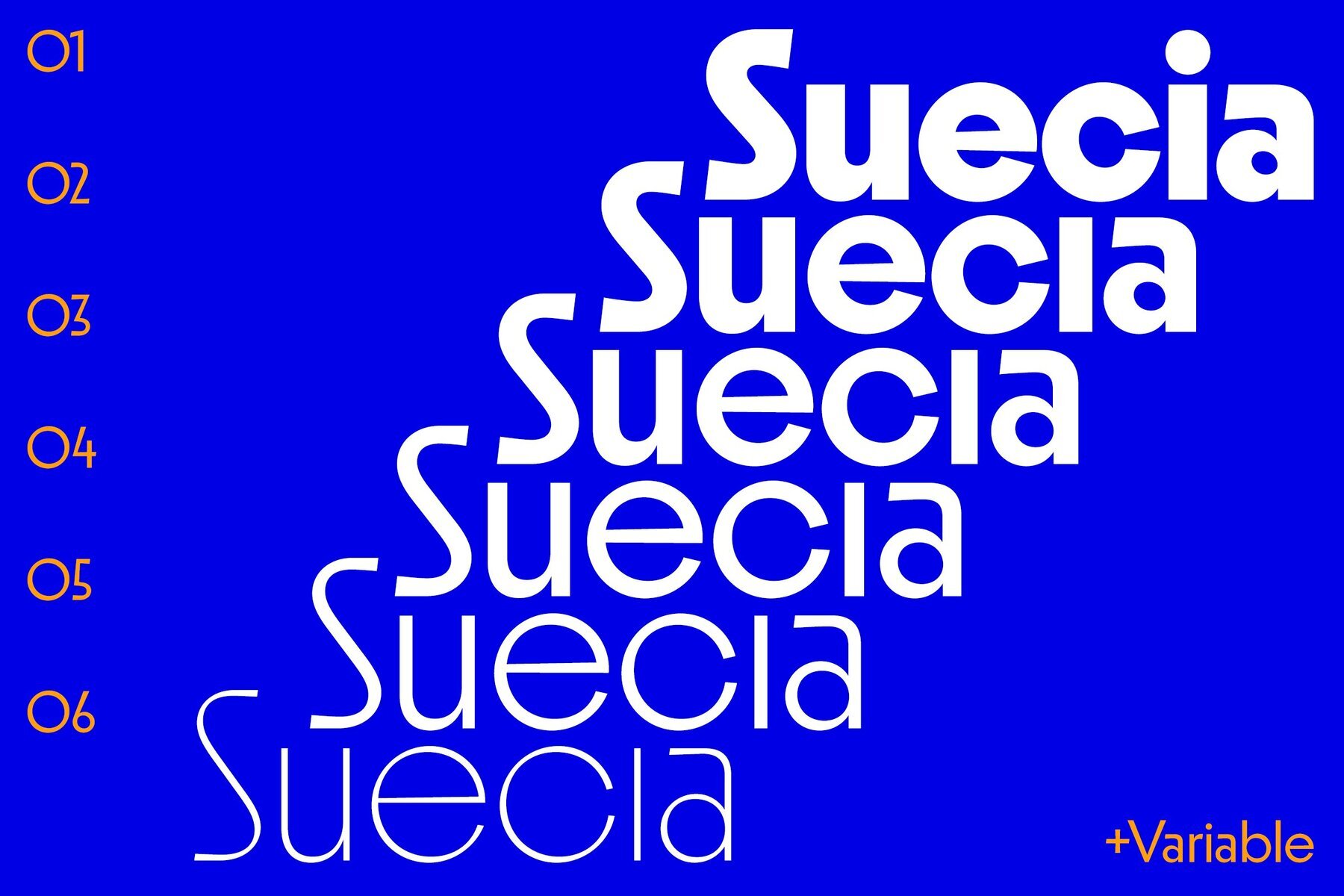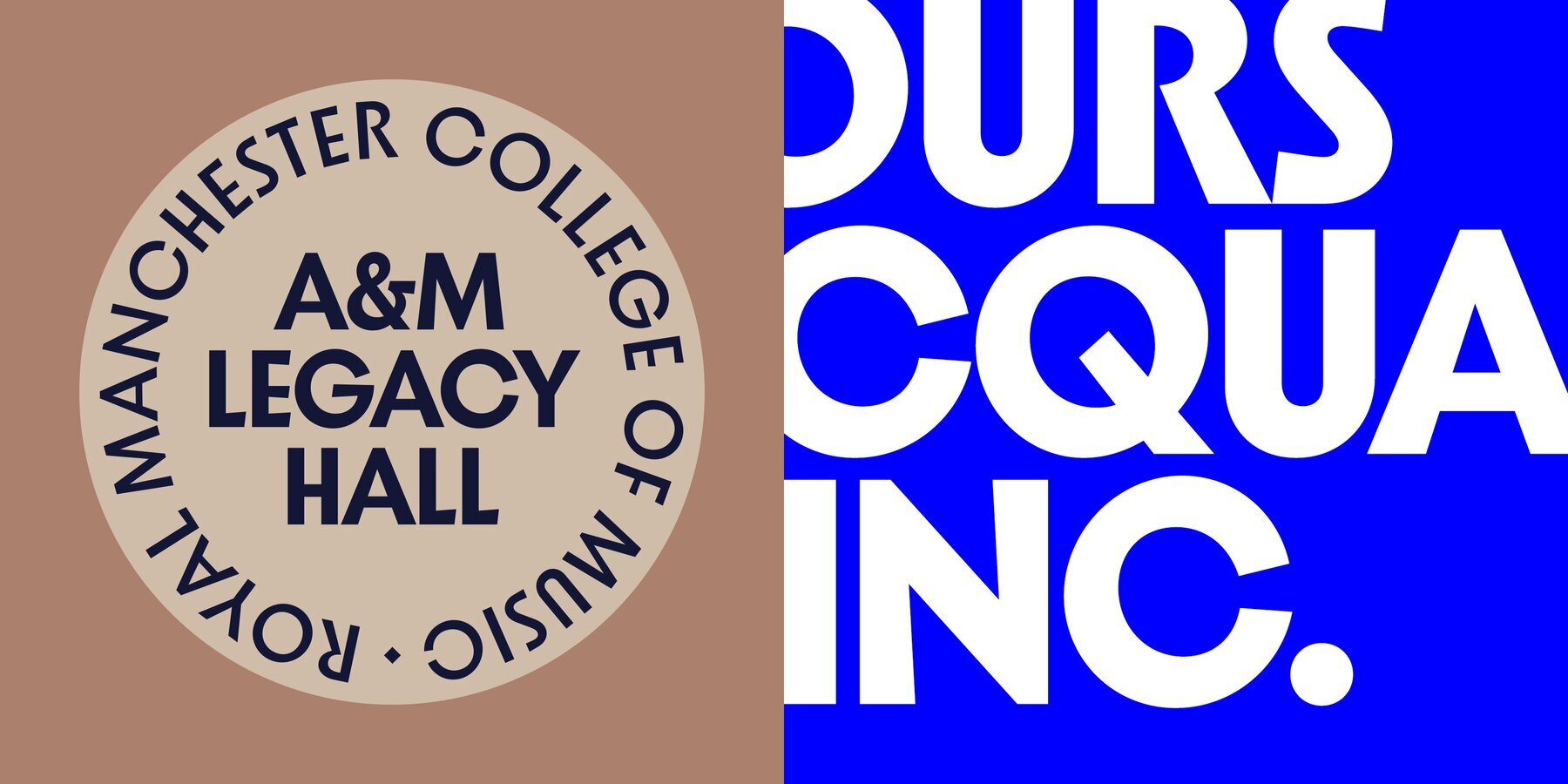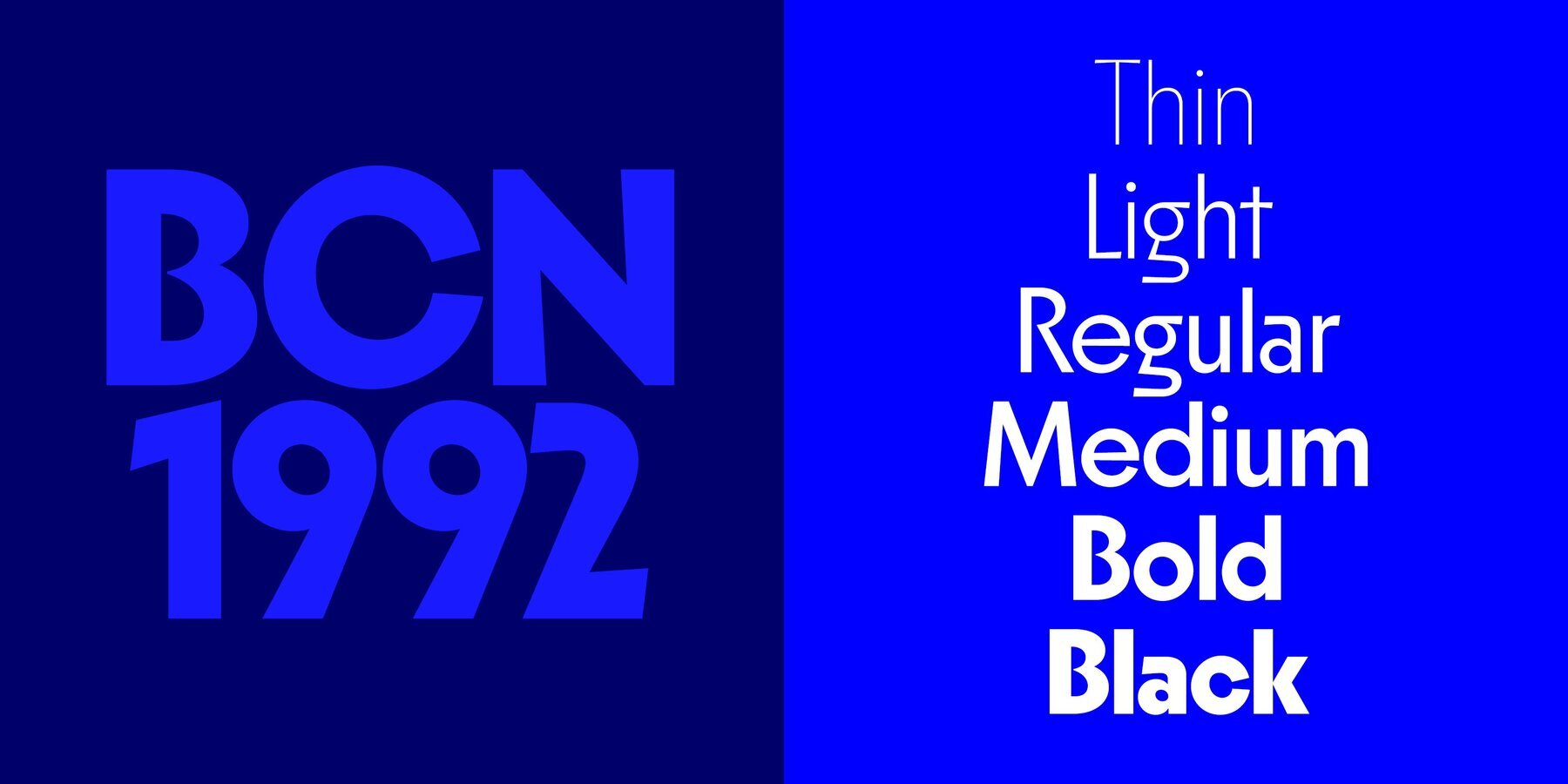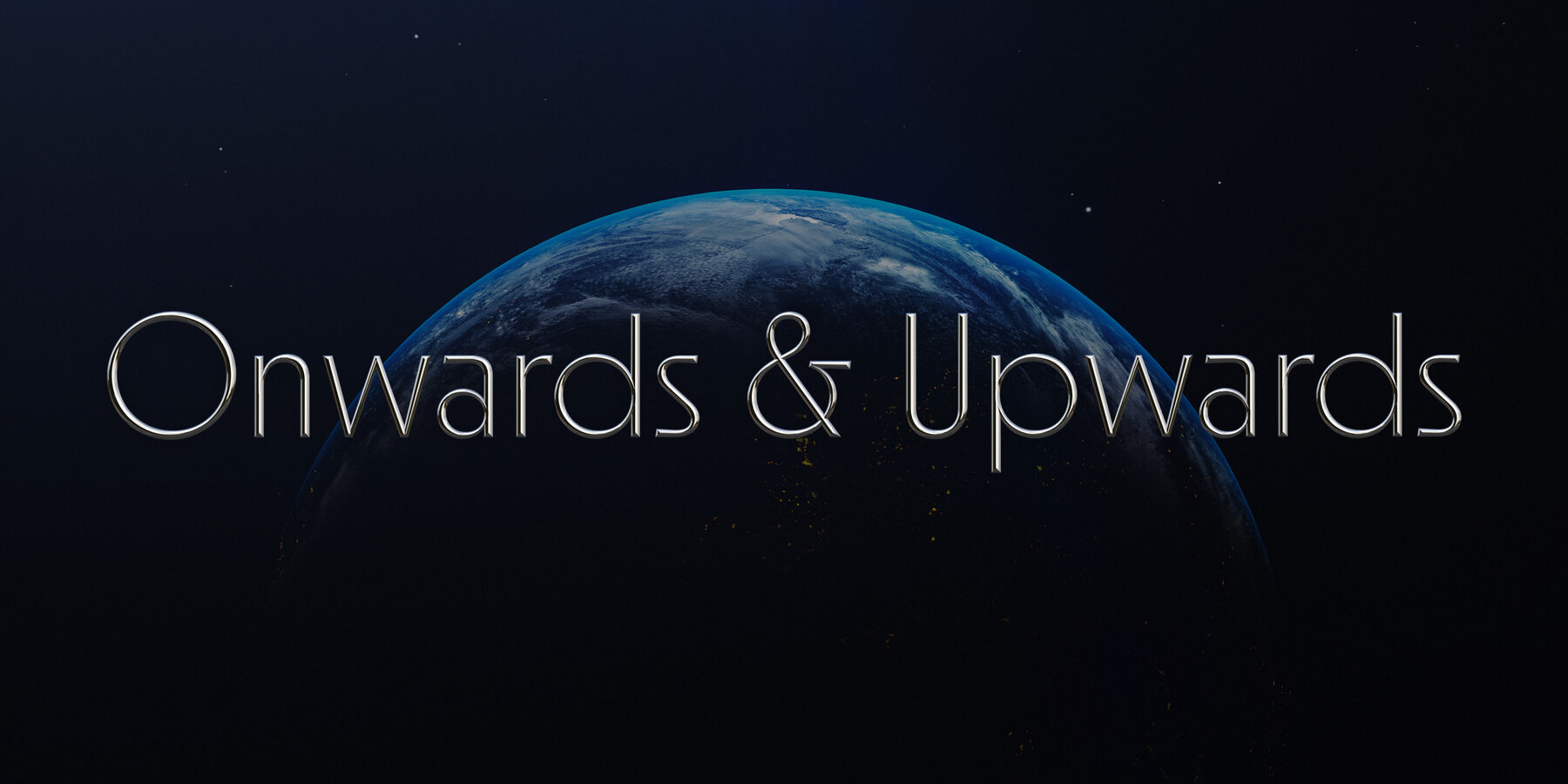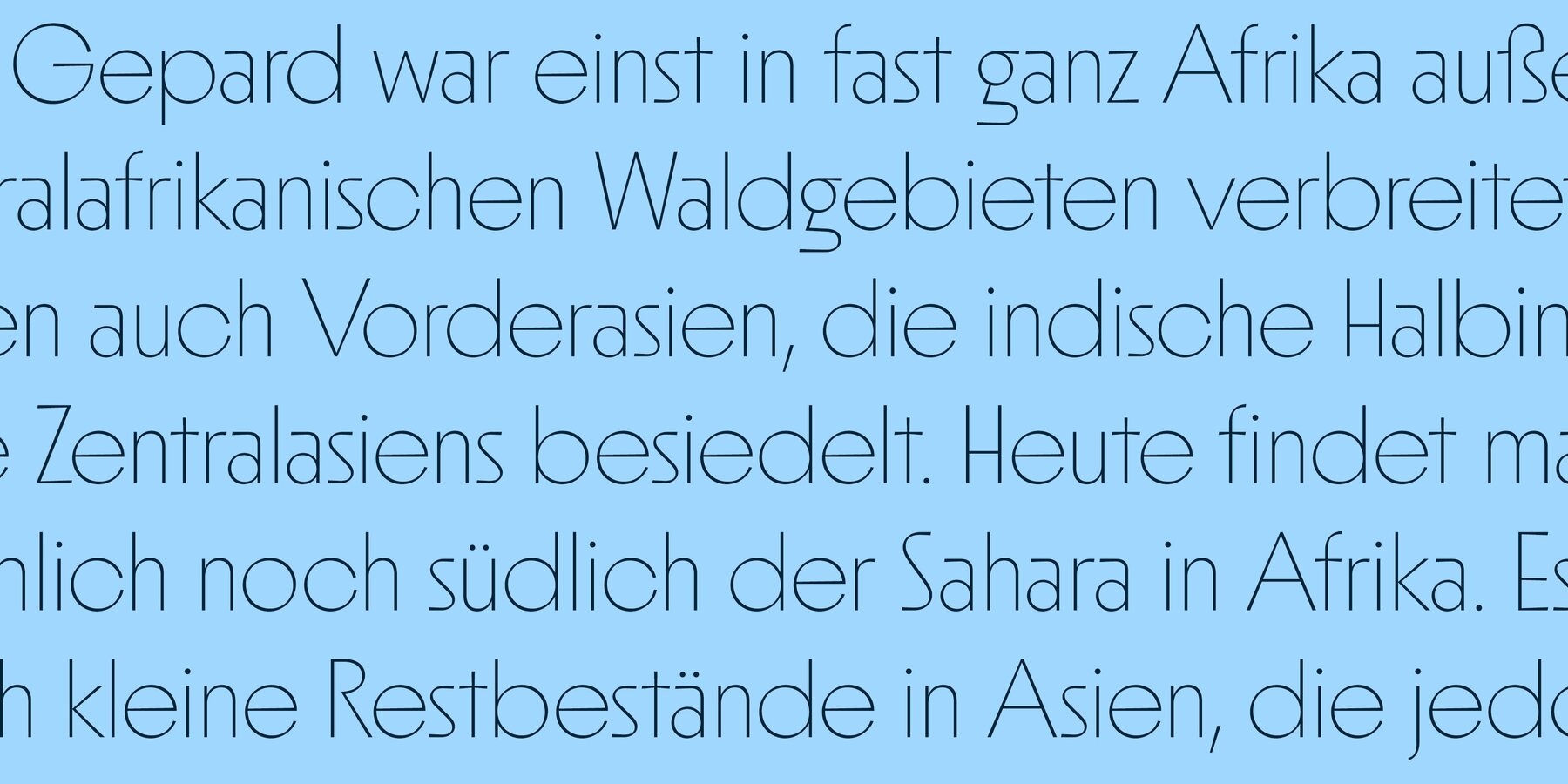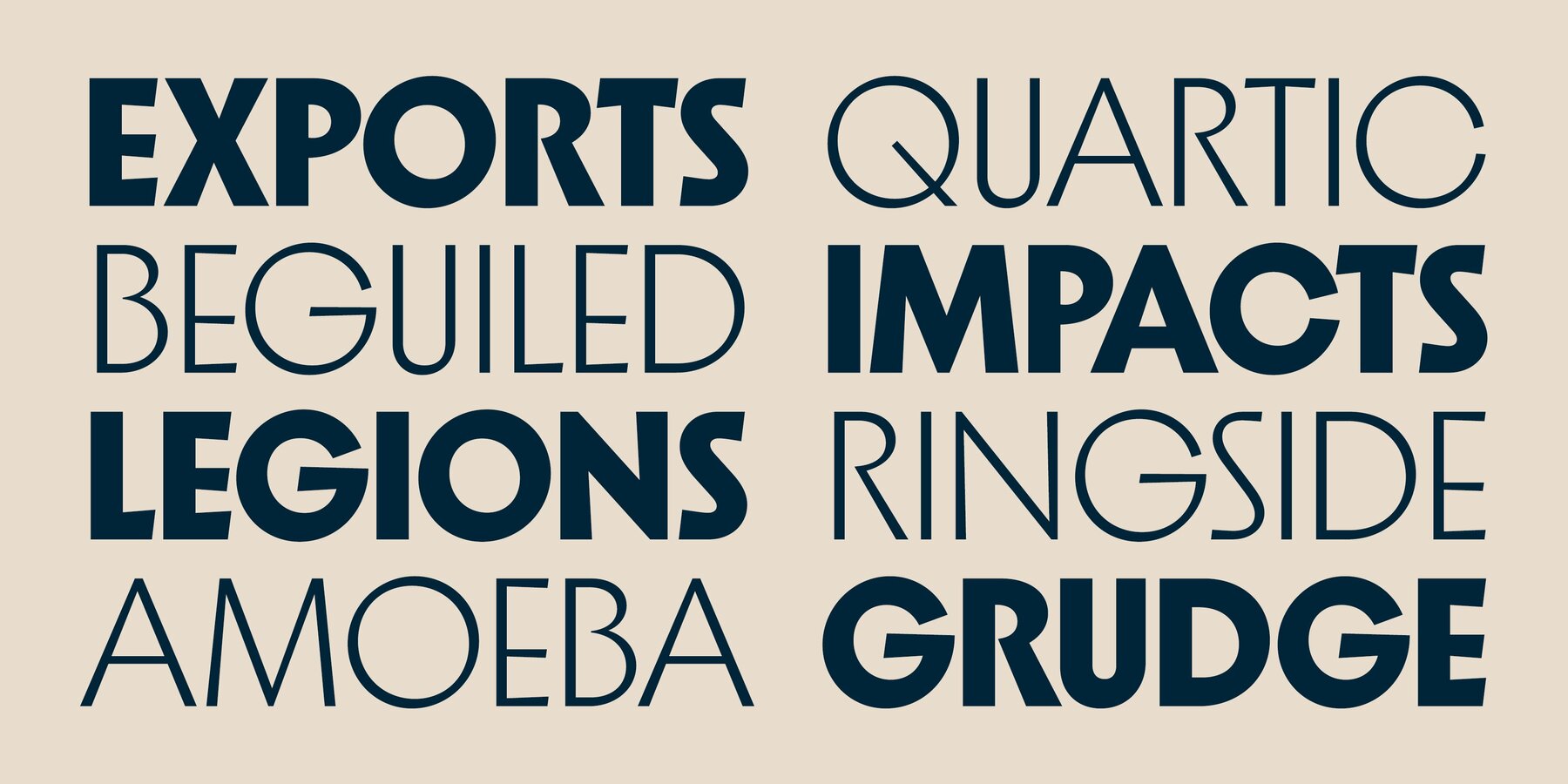
Suecia Font
Suecia is a bold sans-serif font that offers a modern and geometric aesthetic that is perfect for a variety of design projects. Its clean and legible design makes it ideal for branding, headlines, advertising, and logo creation. With a strong and contemporary look, this font is suitable for both web and print design, especially for posters, titles, and other display purposes.